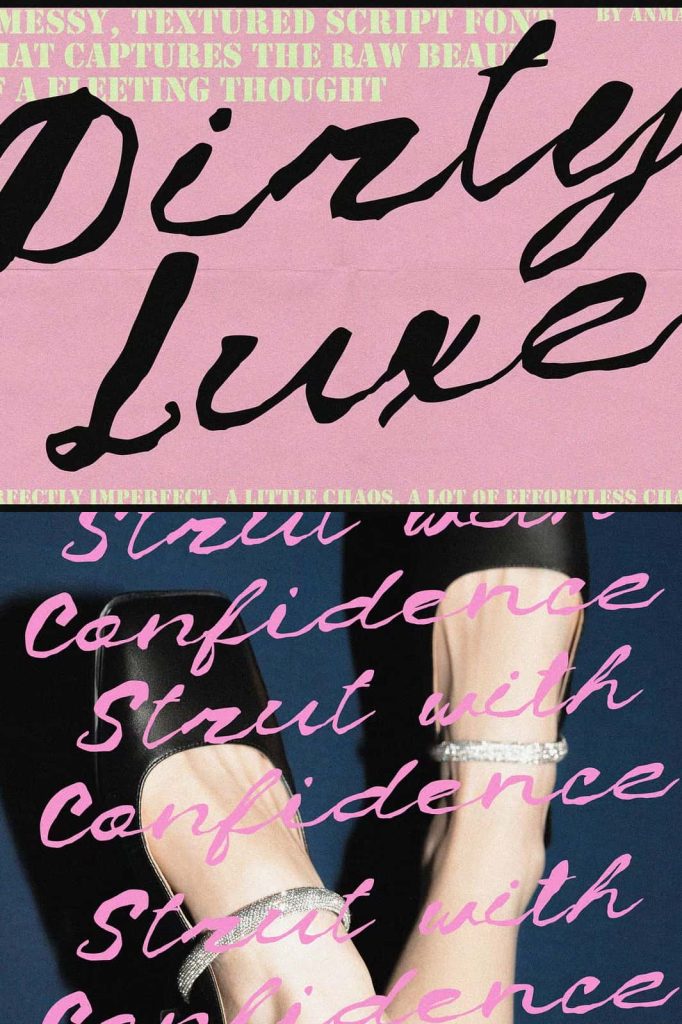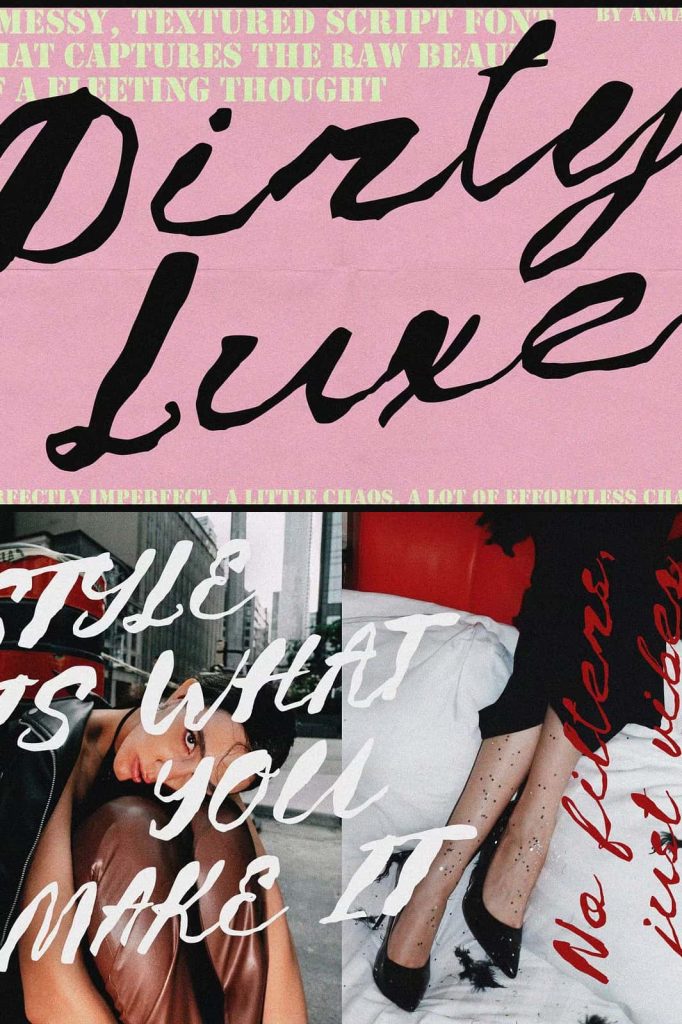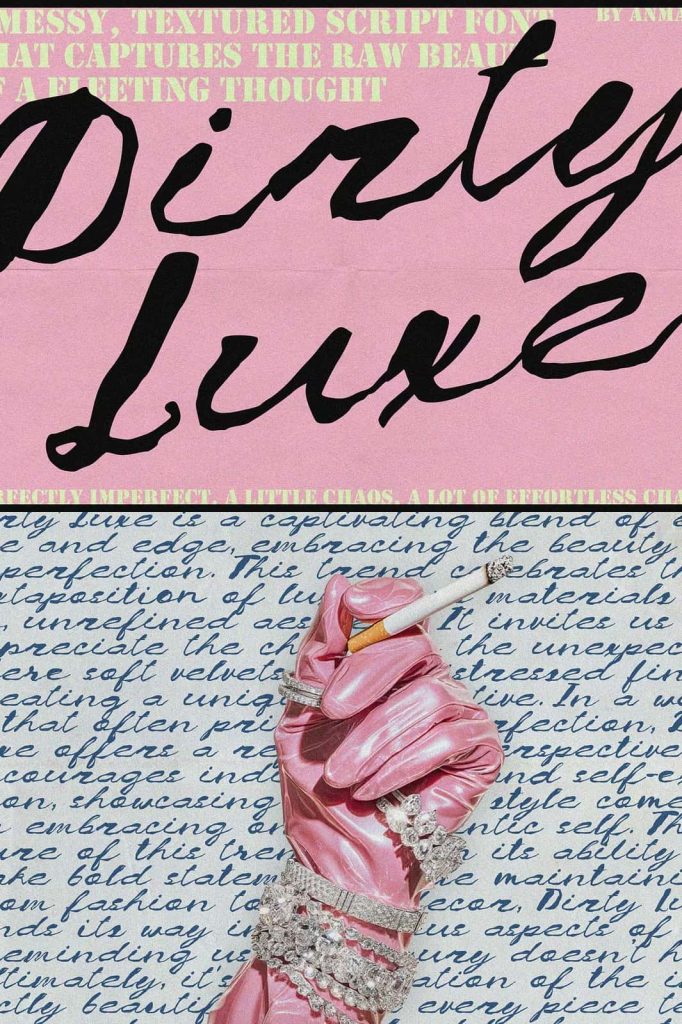
Dirty Luxe: Inky Messy Script Font
Dirty Luxe Font: A Messy Handwritten Script with Bold Fashion Energy
Dirty Luxe captures attention with its messy, confident handwritten style that feels both raw and effortlessly stylish. This script font breaks away from perfection and embraces spontaneity, allowing designers to create expressive and modern visuals. Its inky strokes mimic the natural movement of handwriting, giving each letter a sense of motion and personality.
Instead of following rigid structure, Dirty Luxe flows freely. It reflects the look of quick notes, spontaneous sketches, or bold strokes of lipstick across paper. This organic quality gives the font a unique voice that stands out in branding, editorial layouts, and creative projects.
What Makes Dirty Luxe Unique?
Dirty Luxe stands out because it celebrates imperfection. Each stroke appears unfiltered and natural, creating a sense of authenticity that polished fonts often lack. Designers use this font to inject energy, emotion, and individuality into their work.
The uneven lines and textured ink effects give the typeface a handcrafted appearance. These details make every word feel personal, as if it was written by hand in a moment of inspiration.
Key Characteristics
• Messy handwritten script with natural flow
• Inky strokes that mimic real writing tools
• Raw and unpolished aesthetic for authenticity
• Strong personality with a confident tone
• Perfect balance between chaos and style
The Appeal of Handwritten Script Fonts
Handwritten script fonts like Dirty Luxe bring a human touch into digital design. They allow designers to move beyond mechanical typography and create work that feels alive and expressive. The imperfections in the strokes add warmth and character, making designs more relatable and engaging.
Dirty Luxe goes a step further by combining this handwritten quality with a fashion-forward attitude. It feels bold, modern, and slightly rebellious, making it ideal for projects that aim to stand out.
Why Choose a Messy Script Font?
• Creates a personal and authentic visual tone
• Adds movement and energy to typography
• Breaks away from rigid and formal styles
• Enhances creativity and artistic expression
Best Use Cases for Dirty Luxe
Dirty Luxe works best in projects that demand personality and visual impact. Its bold script style makes it ideal for designs that need to feel expressive, stylish, and slightly unconventional. Designers often use it to create strong visual statements that connect with modern audiences.
Ideal Applications
• Fashion branding and lifestyle campaigns
• Editorial headlines and magazine covers
• Social media graphics with bold messaging
• Packaging designs that emphasize creativity
• Personal branding and signature-style logos
How to Use Dirty Luxe Effectively
To maximize the impact of Dirty Luxe, designers should focus on contrast and layout. Pair this expressive script with clean and minimal fonts to maintain balance and readability. This approach allows the handwritten style to remain the focal point without overwhelming the design.
Use Dirty Luxe in larger sizes to showcase its inky textures and natural flow. Avoid using it for long paragraphs, as its irregular structure may reduce readability. Instead, apply it to headlines, short phrases, or key design elements.
Design Tips
• Use bold compositions to highlight the font’s energy
• Combine with simple sans-serif fonts for contrast
• Apply on clean backgrounds to emphasize texture
• Keep spacing balanced to maintain clarity
Dirty Luxe delivers a powerful blend of raw imperfection and modern fashion style. Its messy handwritten script and inky strokes create a dynamic and expressive typographic experience. Designers who want to break away from traditional typography will find this font a valuable tool for creating bold and memorable designs.
By using Dirty Luxe, you can introduce personality, movement, and authenticity into your work. This typeface transforms simple text into a visual statement that feels confident, creative, and unmistakably unique.